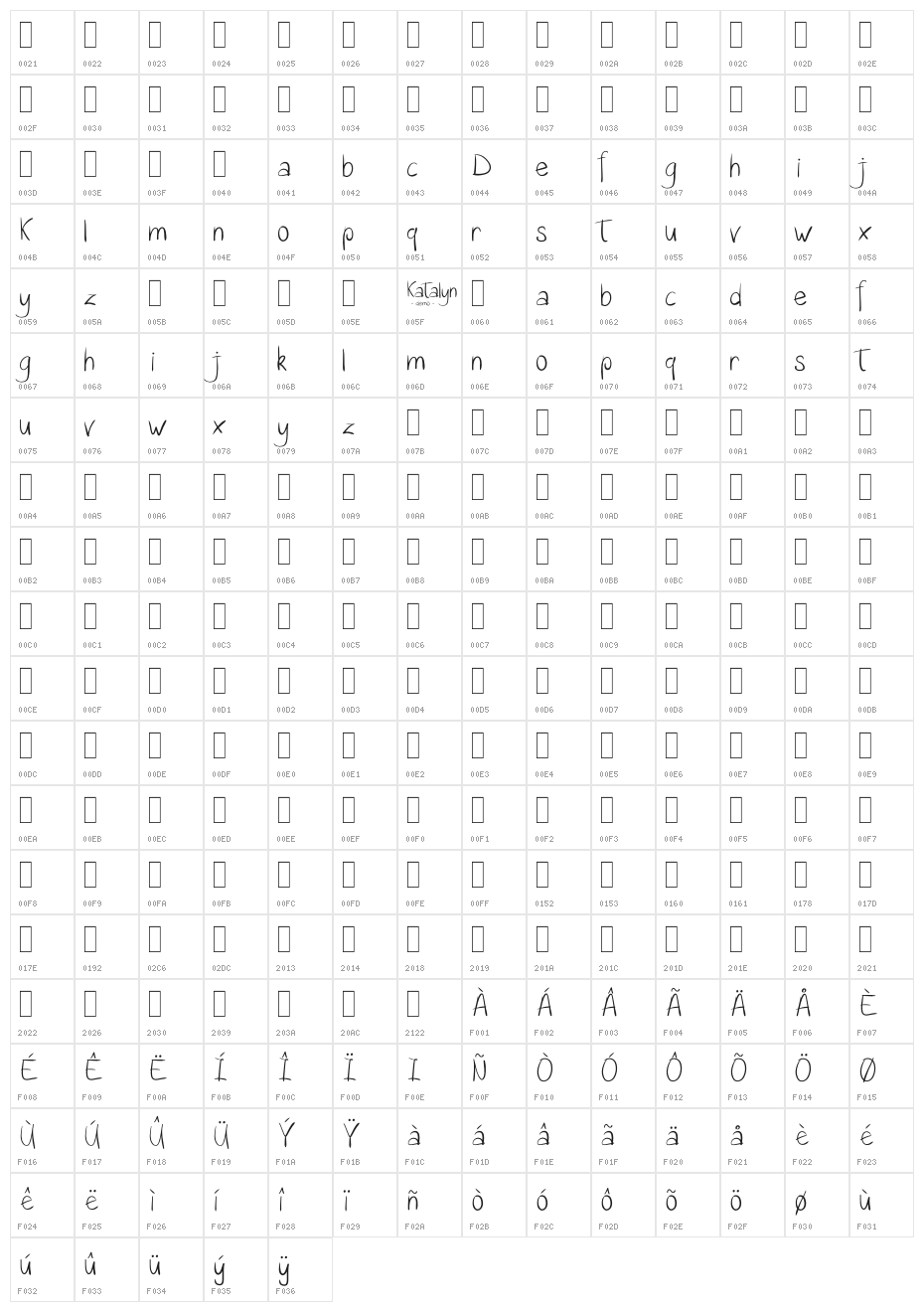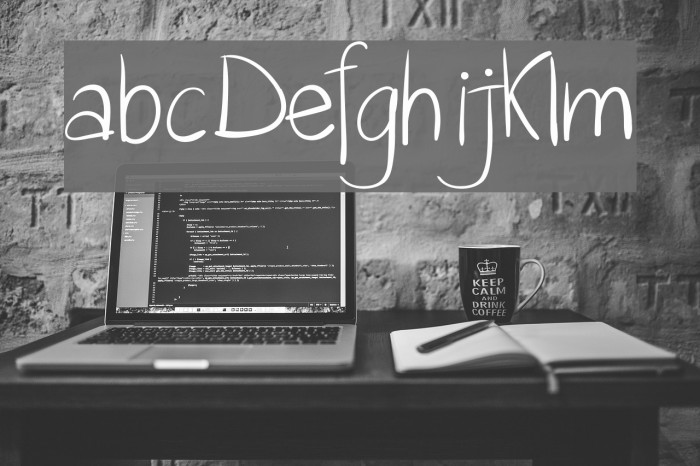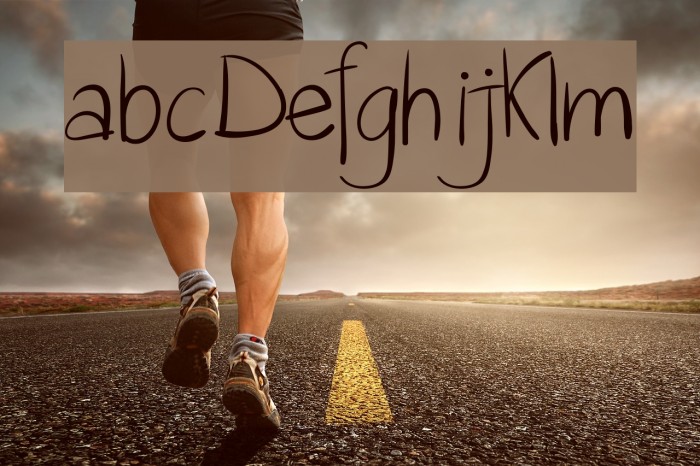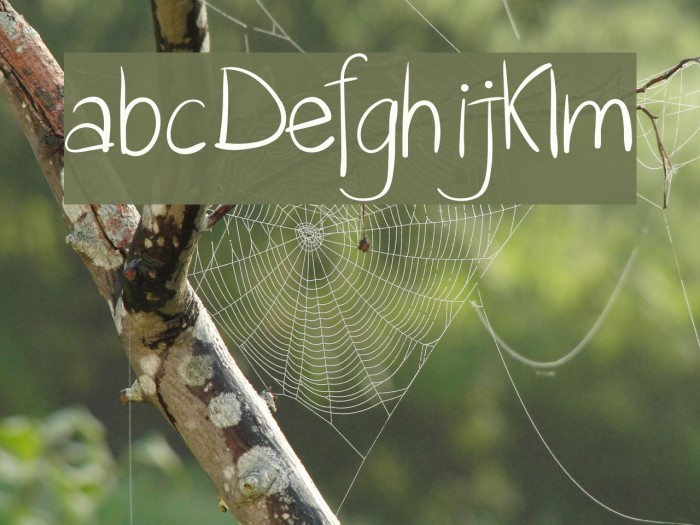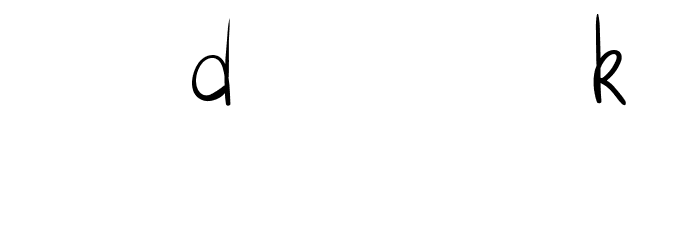
Katalyn Demo Font
Katalyn Demo Description
This font exhibits a playful and whimsical style, characterized by its handwritten appearance. The letters are slightly irregular, with varying stroke thicknesses that add to its casual and informal feel. The characters have a flowing, organic quality, with some letters featuring unique loops and curves that enhance its artistic flair. The overall look is dynamic and lively, making it suitable for creative and expressive projects. The font maintains a consistent baseline, but the heights of the letters vary, contributing to its charmingly uneven aesthetic.
| Use Case | Logos, Headlines |
| Proposed Projects | Ideal for greeting cards, children's books, playful branding, and creative posters. |